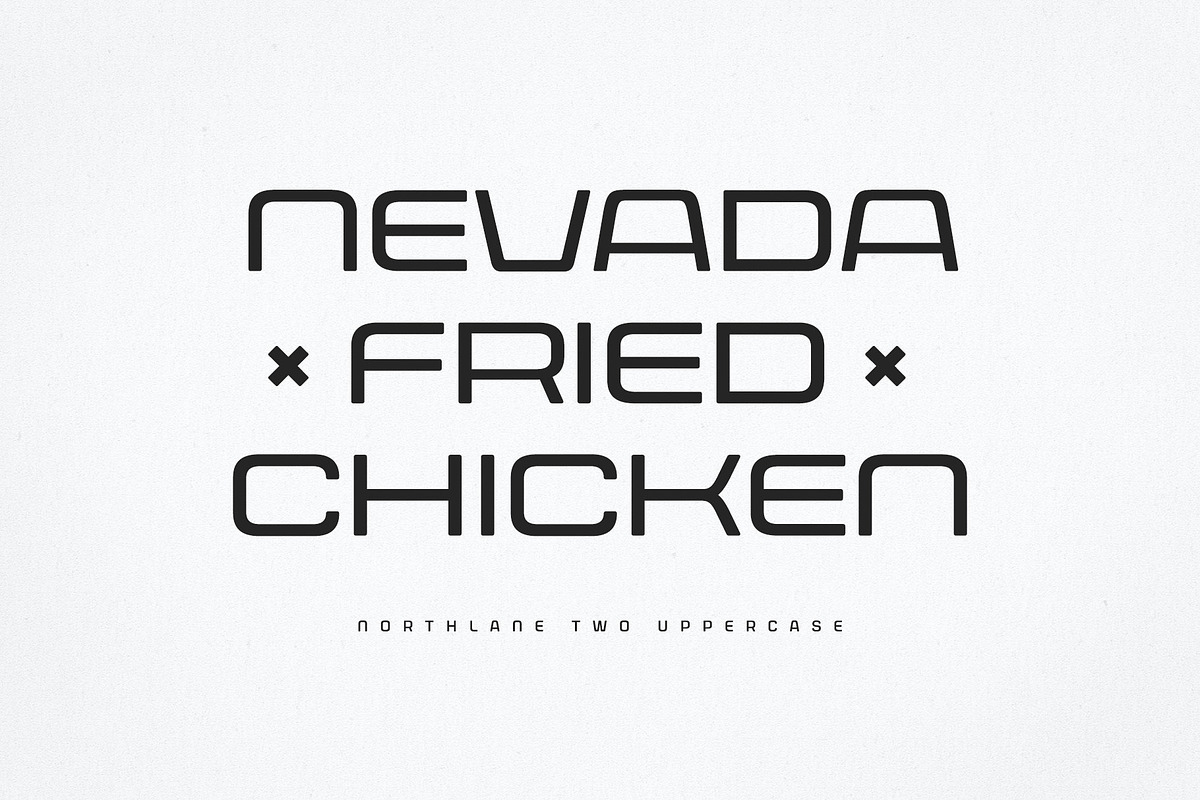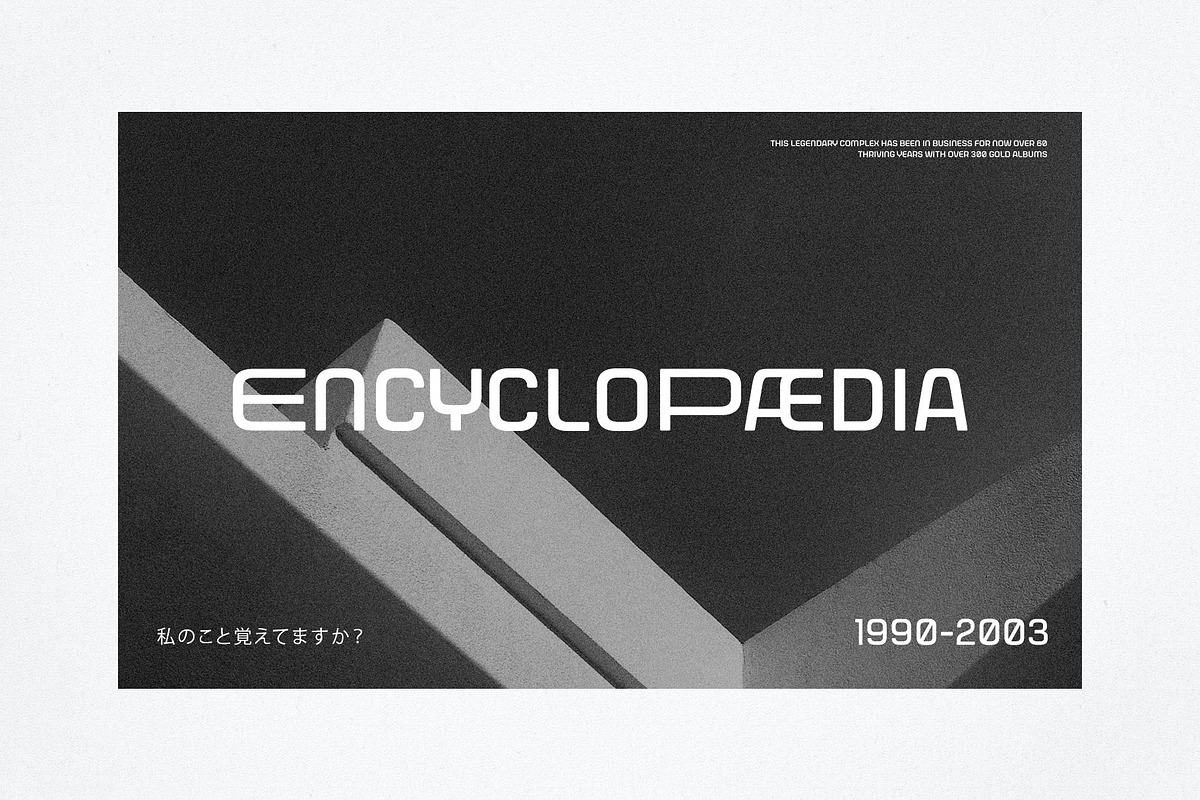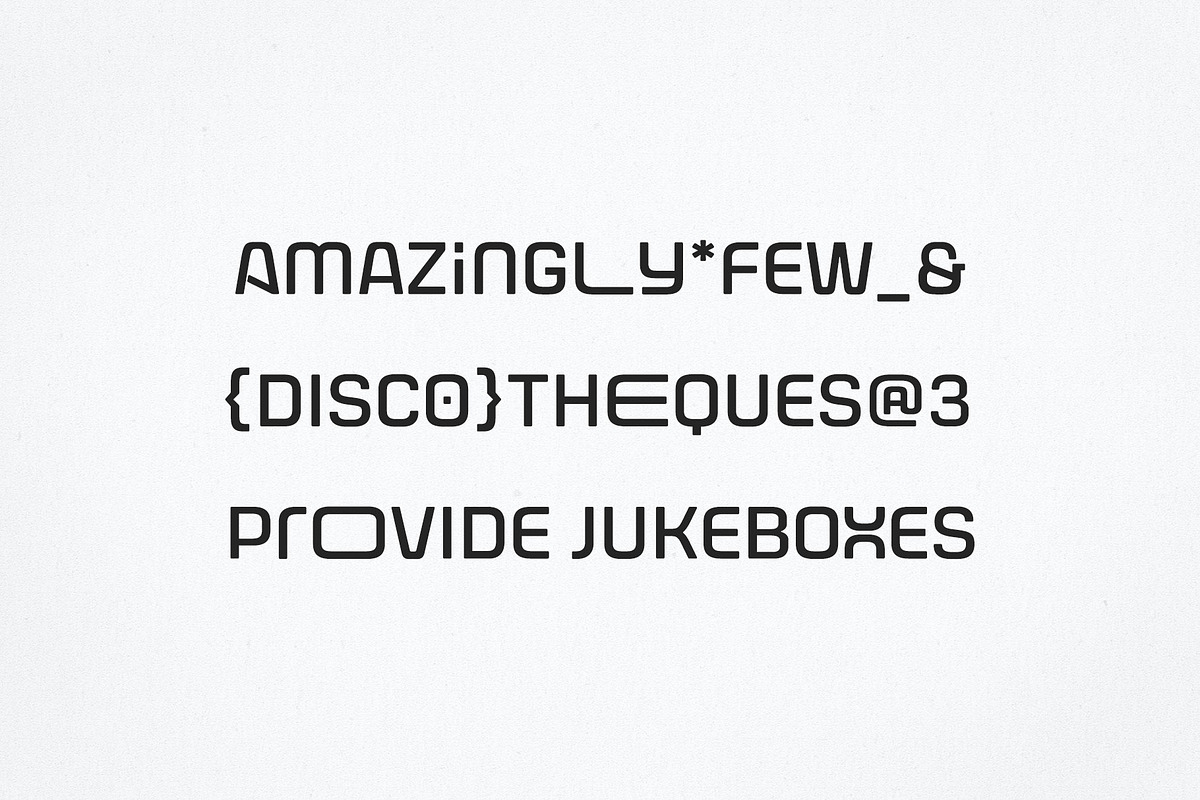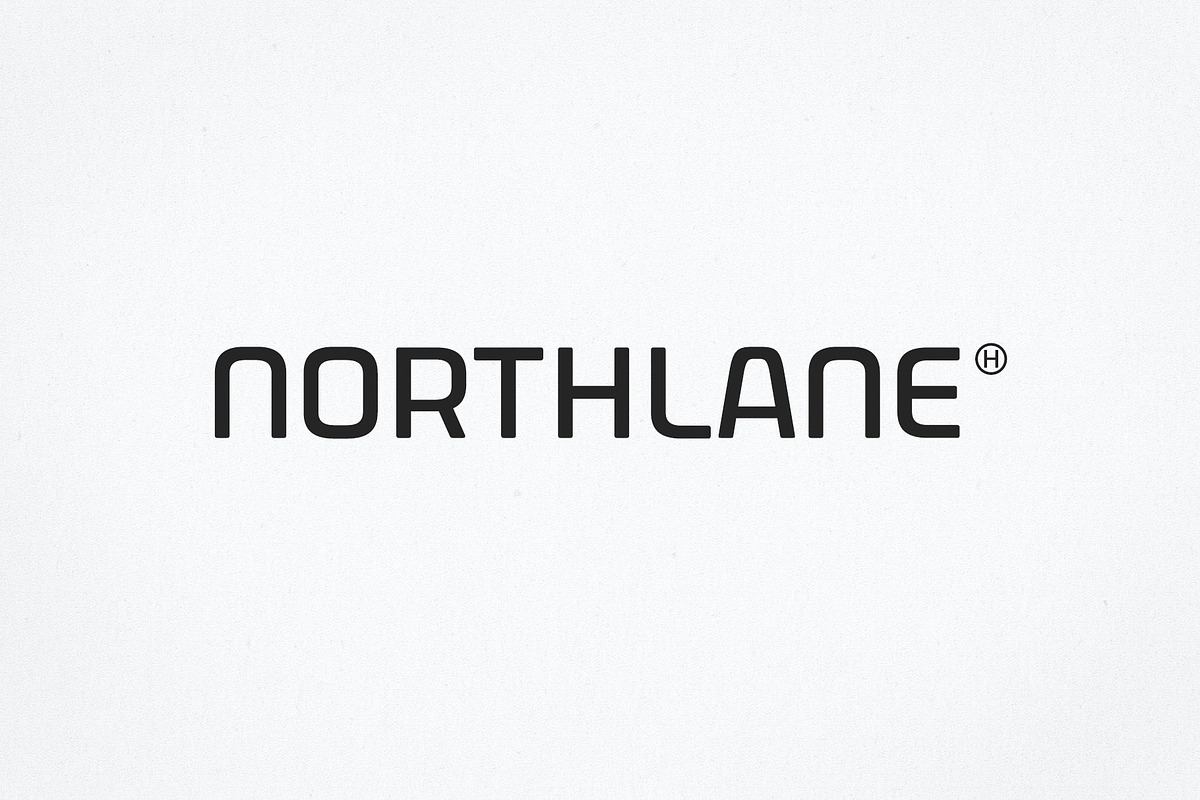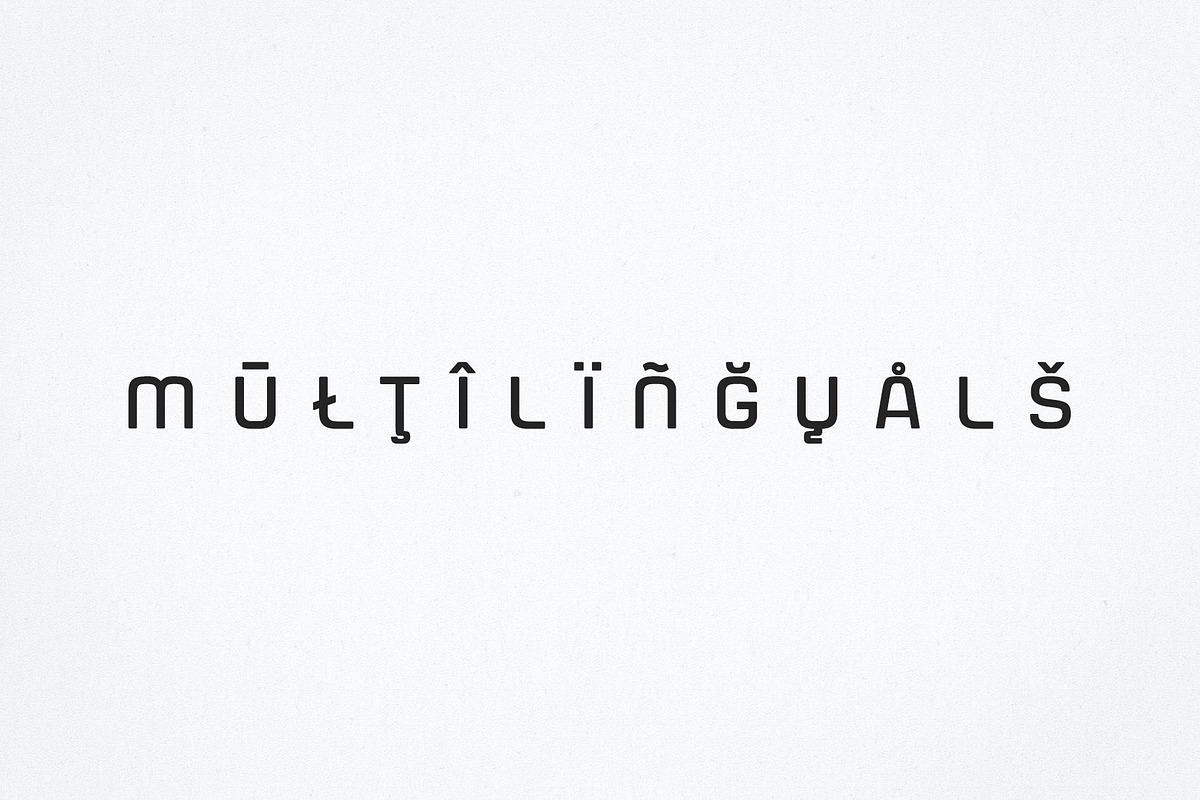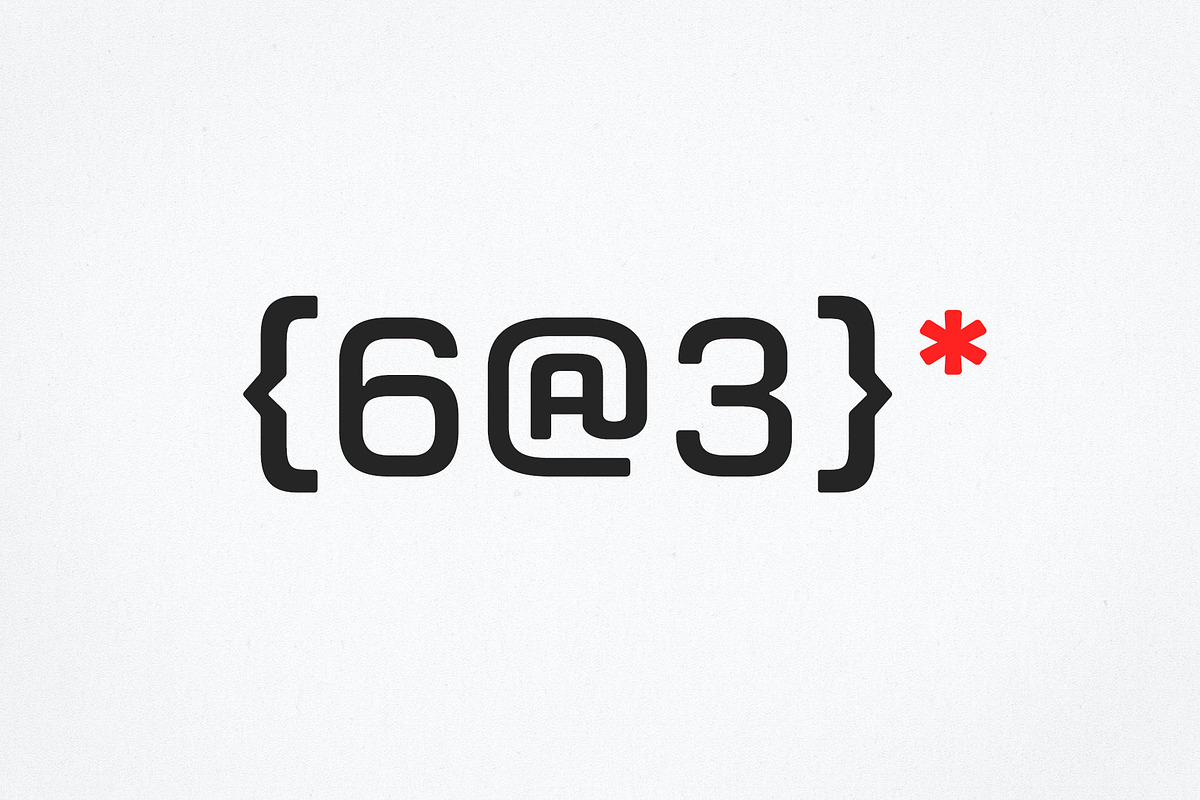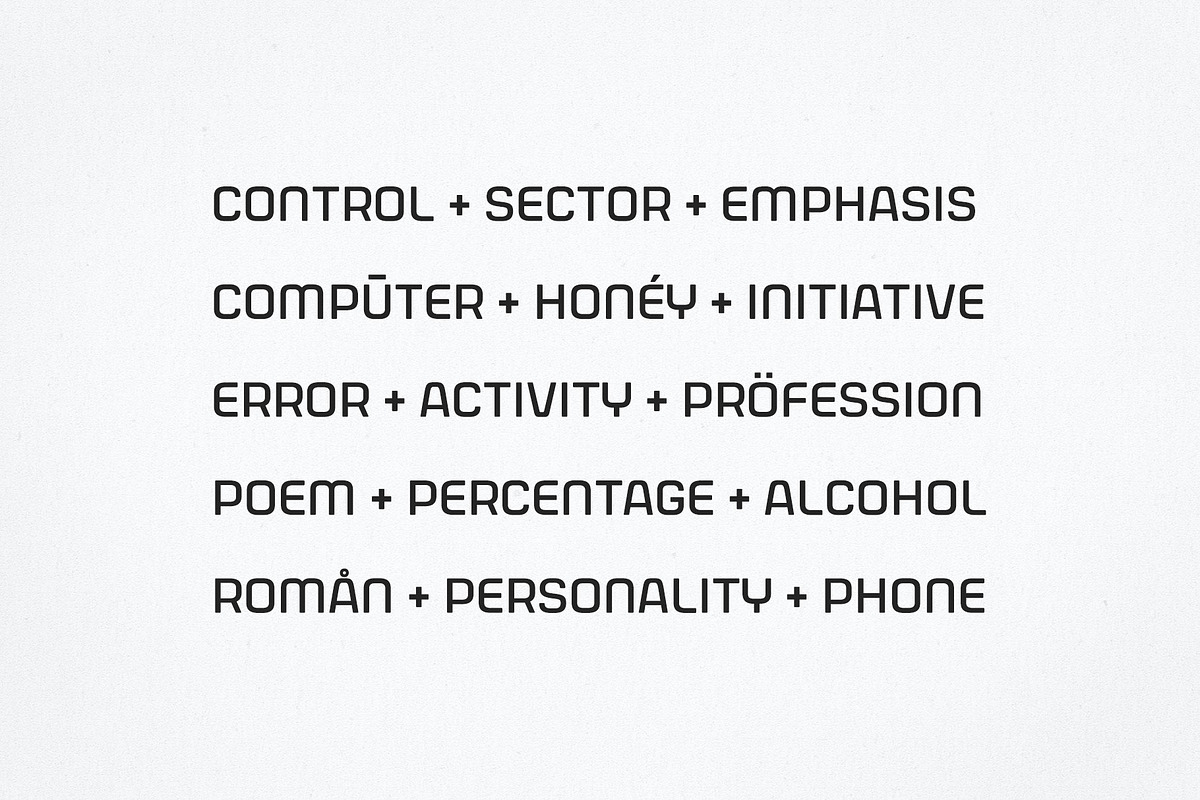
Northlane - Minimalist Sans
NORTHLANE | Stylish Minimalistic Sans
Northlane is minimalist font with smooth and elegant rounded edges. This font is projecting modern and futuristic vibe, perfectly suited for graphic design application ranging from editorial and corporate design to web and interaction design.
- 2 Styles Titling/All Caps design
- Numerals - Punctuations - Symbols
- Accents - Multilingual Characters - Adobe Latin 3